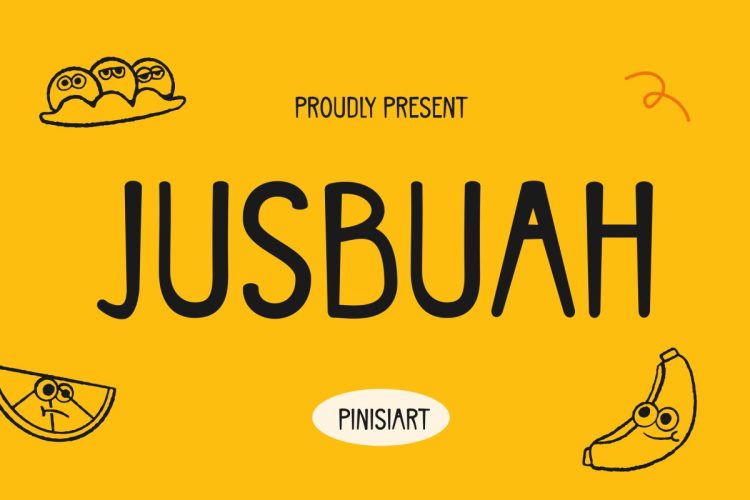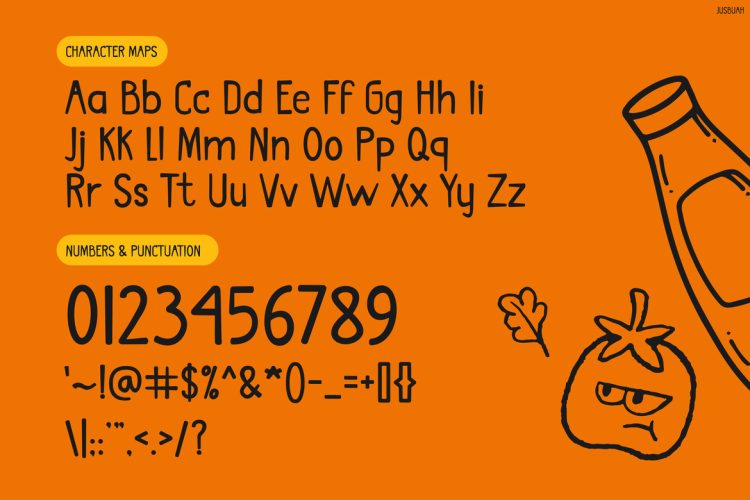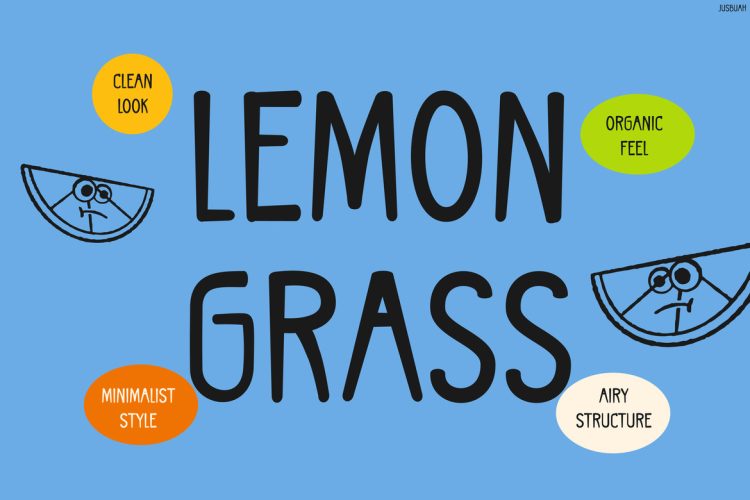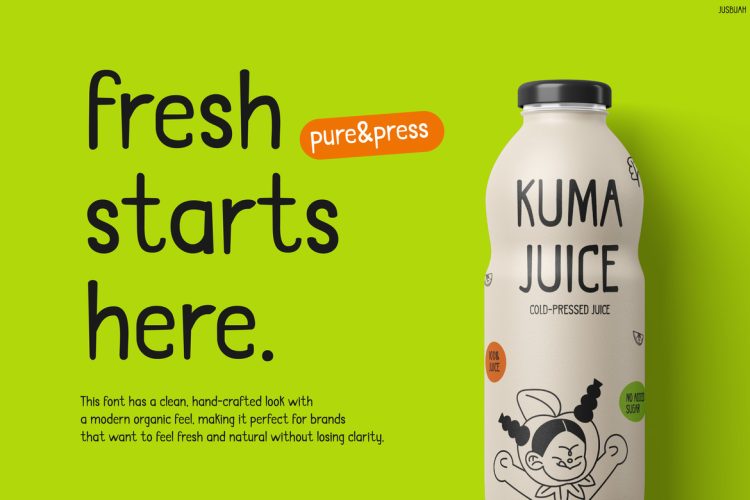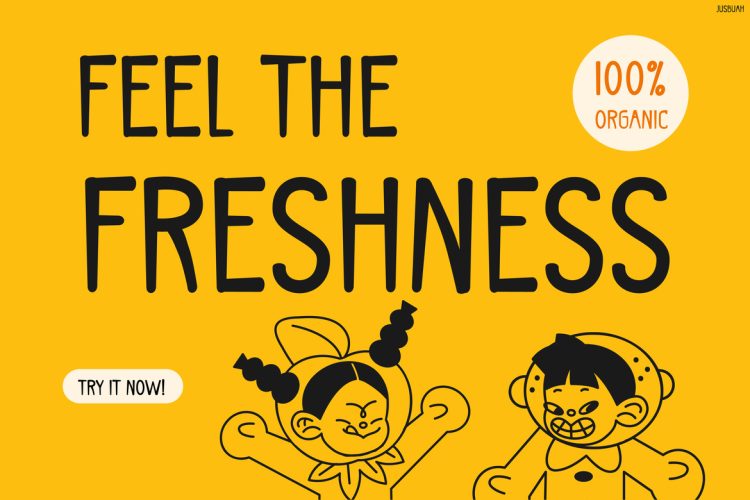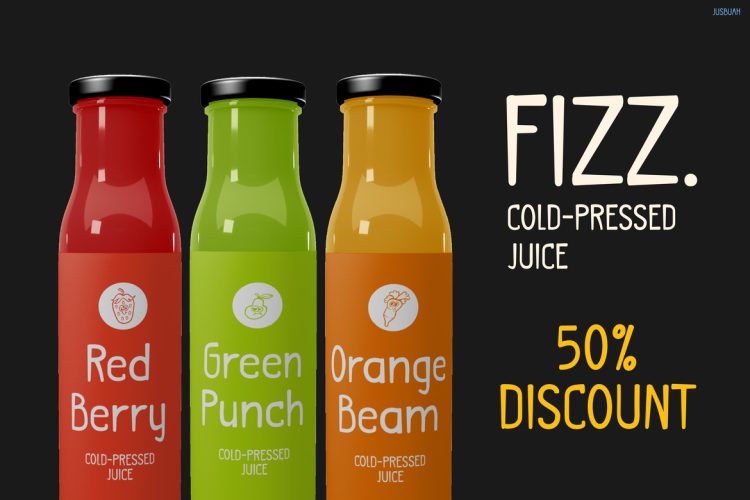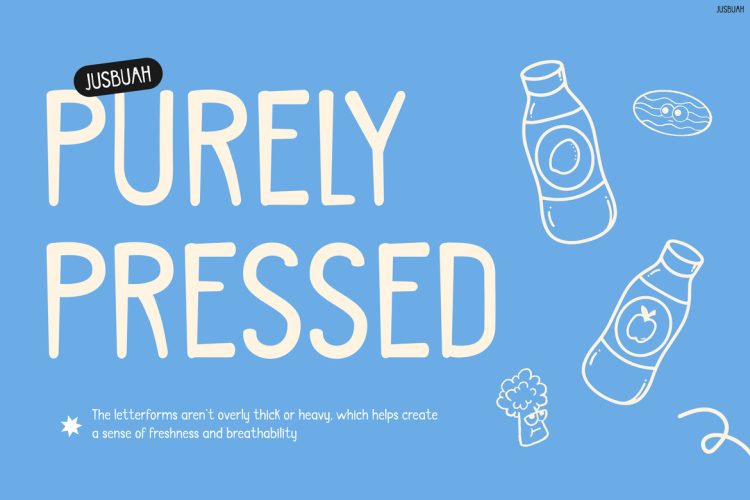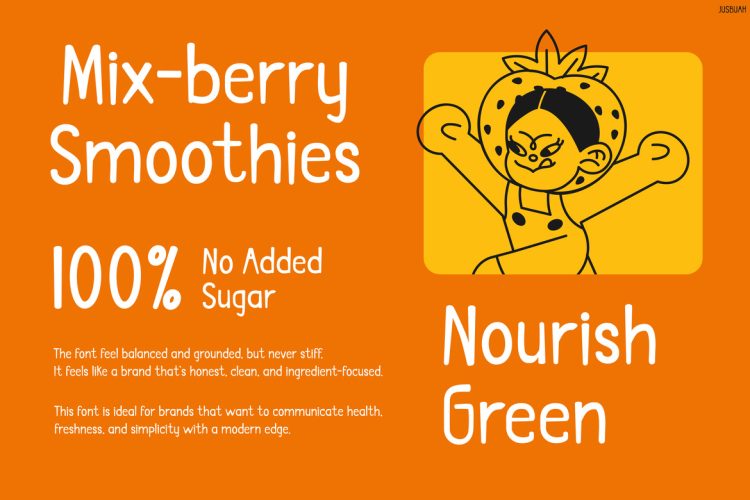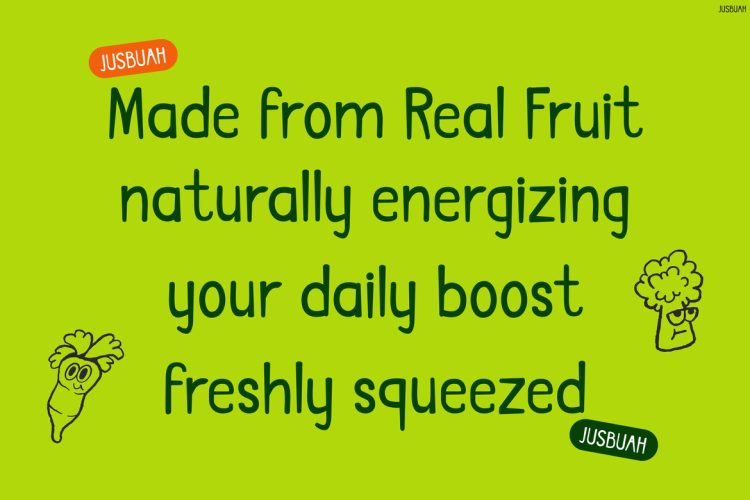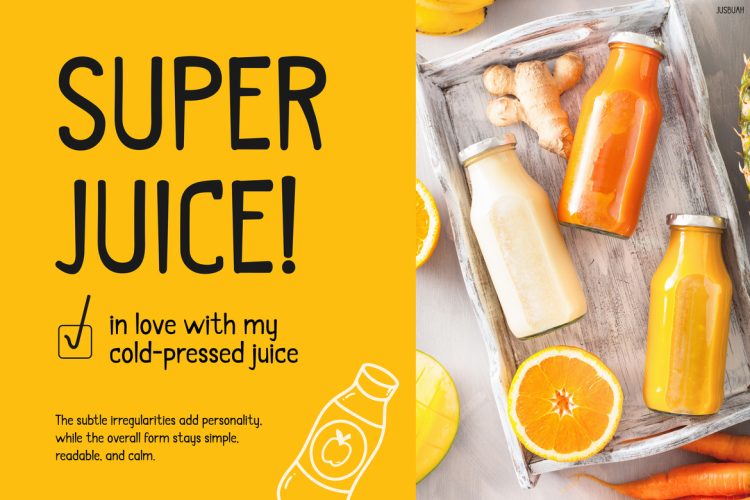
Kids Font Jusbuah โ Playful, Fresh & Fun Vibes
Kids Font Jusbuah brings a burst of cheerful energy, while instantly capturing attention with its playful, hand-drawn style. Moreover, its rounded and slightly irregular shapes create a natural, organic feel that reflects fruity freshness. Not only is it visually fun, but it also maintains excellent readability, so your message stays clear across any design. In addition, the lively character details make every word feel expressive, which helps your visuals stand out in bright, colorful compositions.
Best Use
Kids Font Jusbuah is designed for creatives who want engaging and joyful visuals. For example, it works perfectly for juice branding, kidsโ packaging, healthy drink promotions, and social media graphics. Furthermore, it adapts well to posters, labels, and playful advertisements. Because of its friendly tone, it appeals strongly to children, families, and lifestyle audiences. As a result, designers and small business owners can easily create fun yet professional-looking designs.
Who Is It For?
This font is ideal for graphic designers, branding teams, and content creators. In particular, it suits entrepreneurs in the food and beverage niche, especially those focused on organic or fruity products. Additionally, it works great for educational materials and event promotions that need a lively touch. Therefore, anyone looking to add warmth and personality to their visuals will benefit from this font.